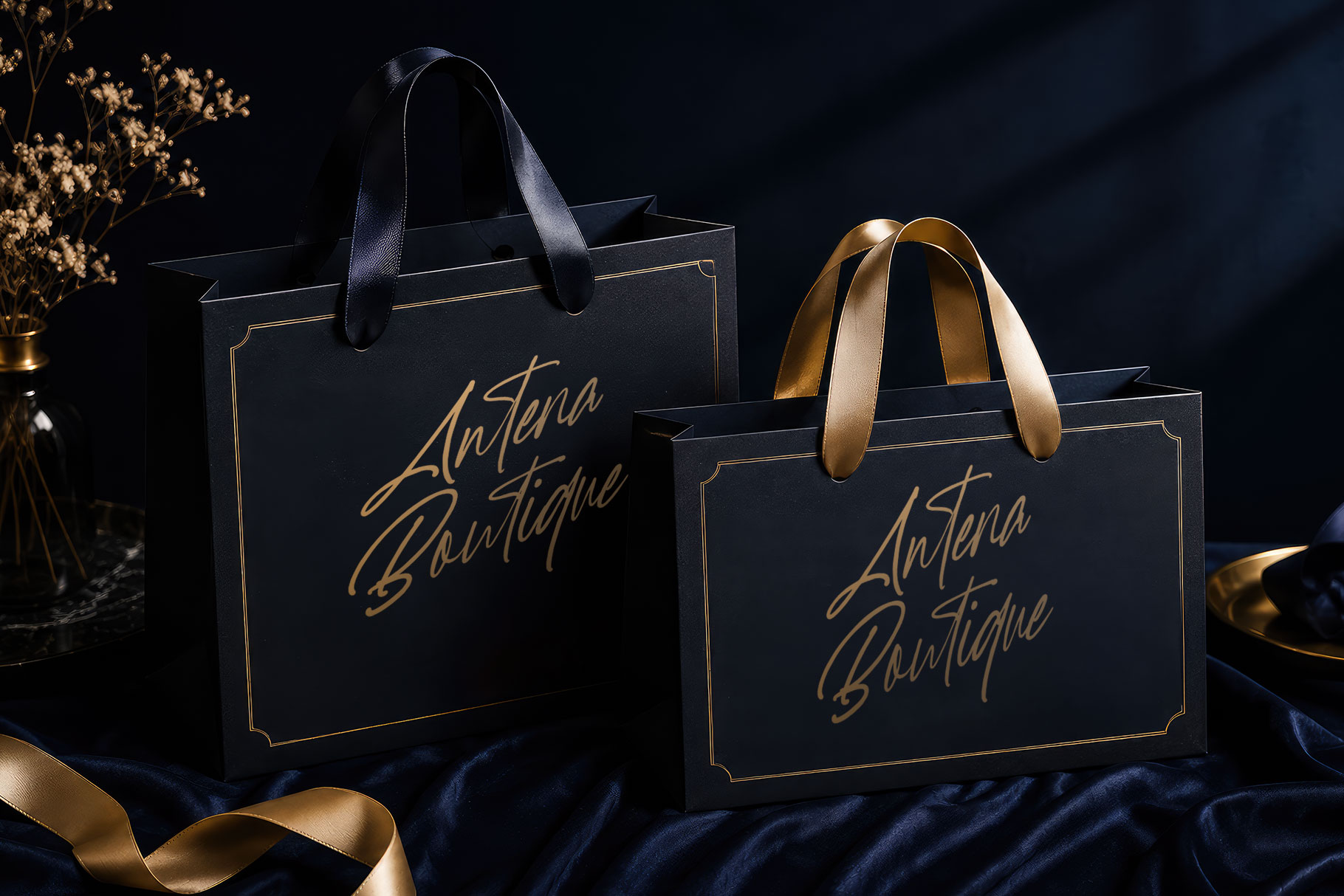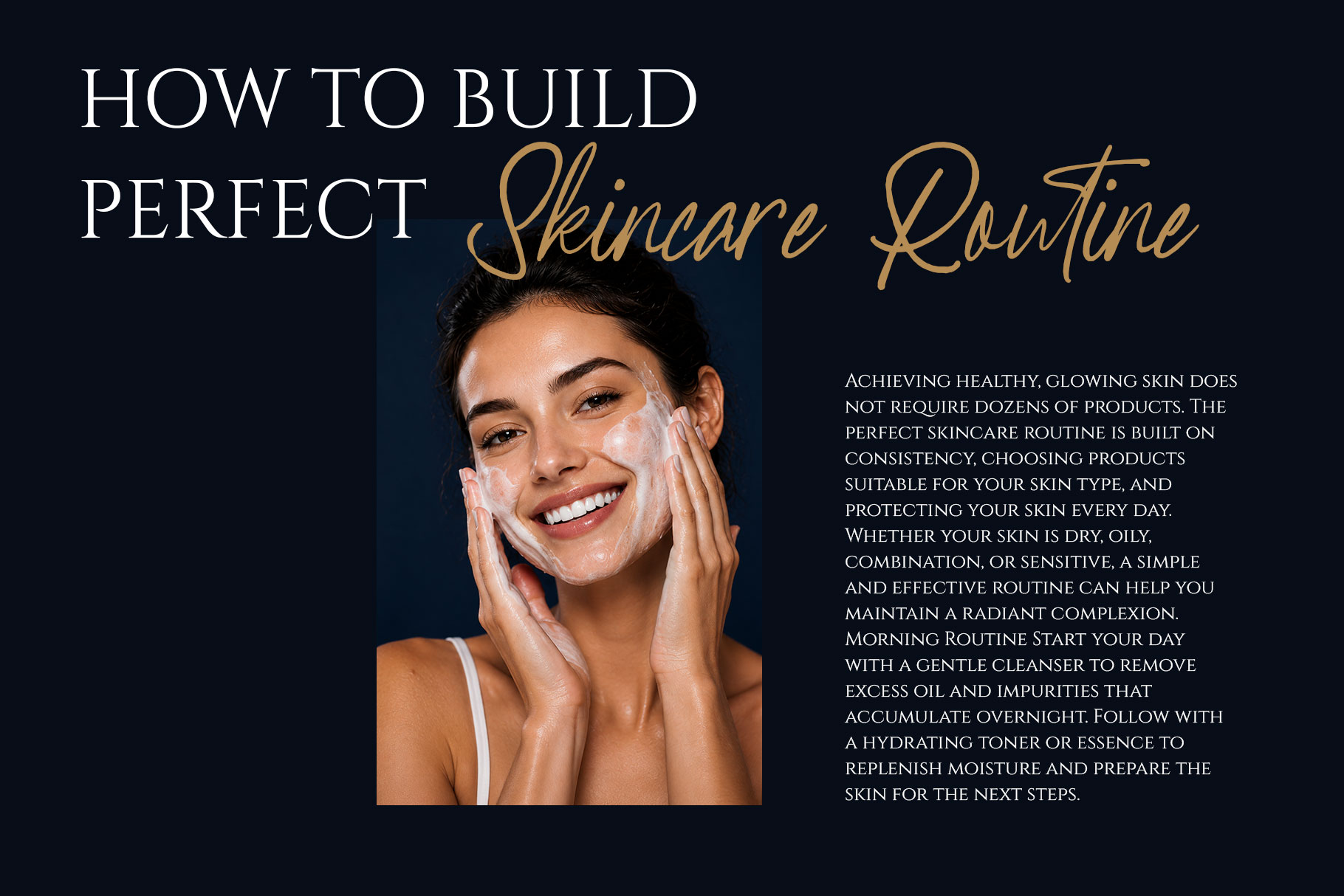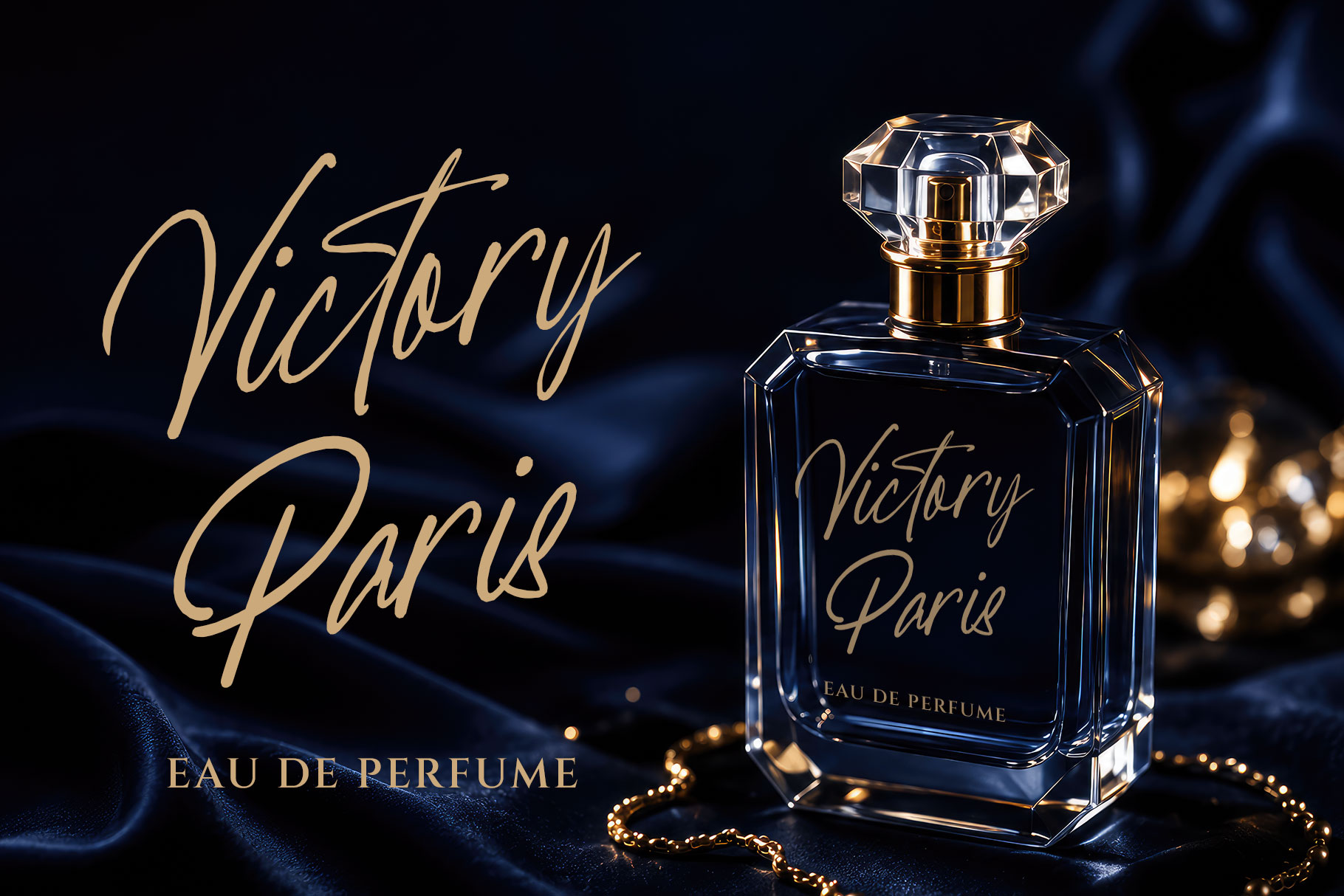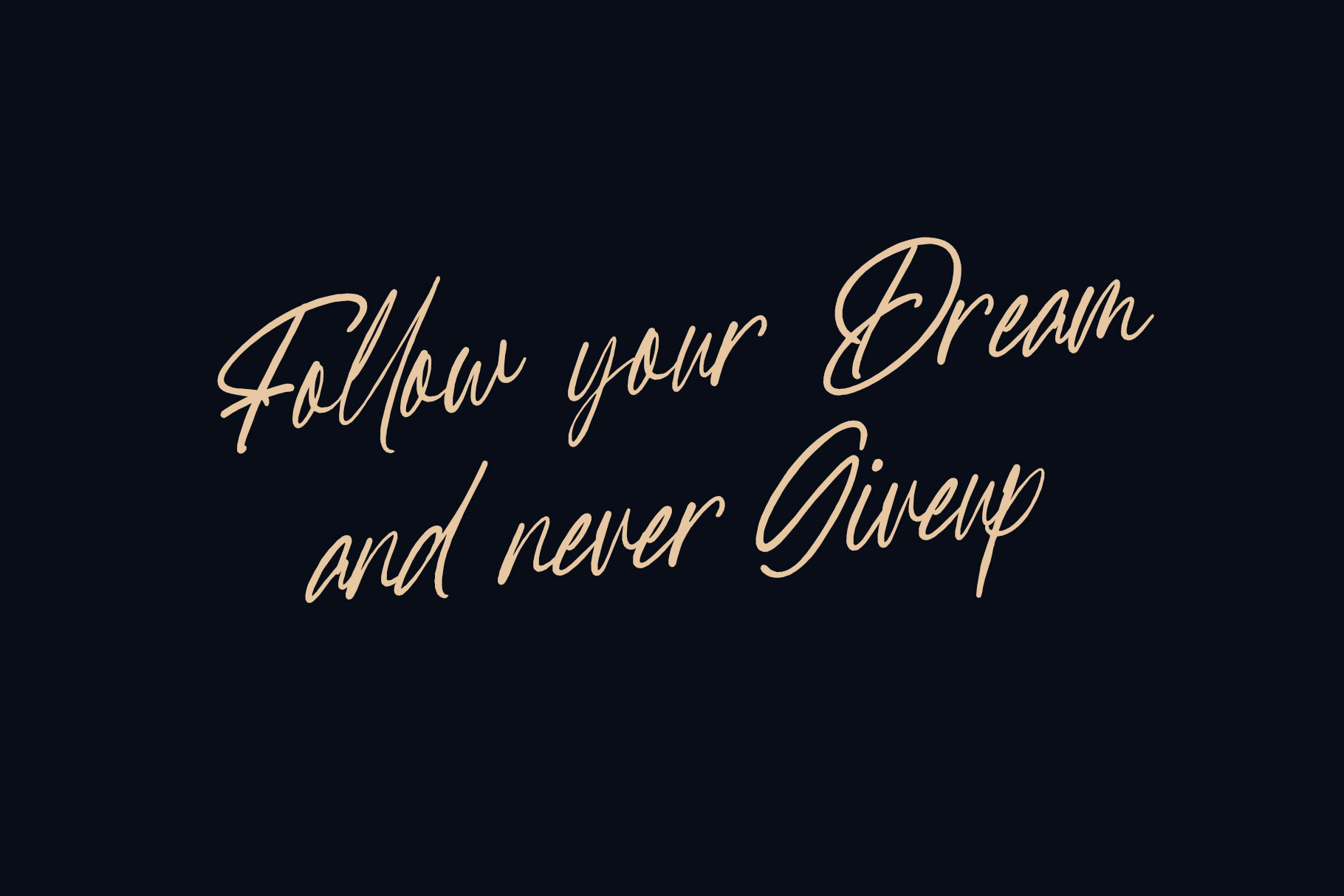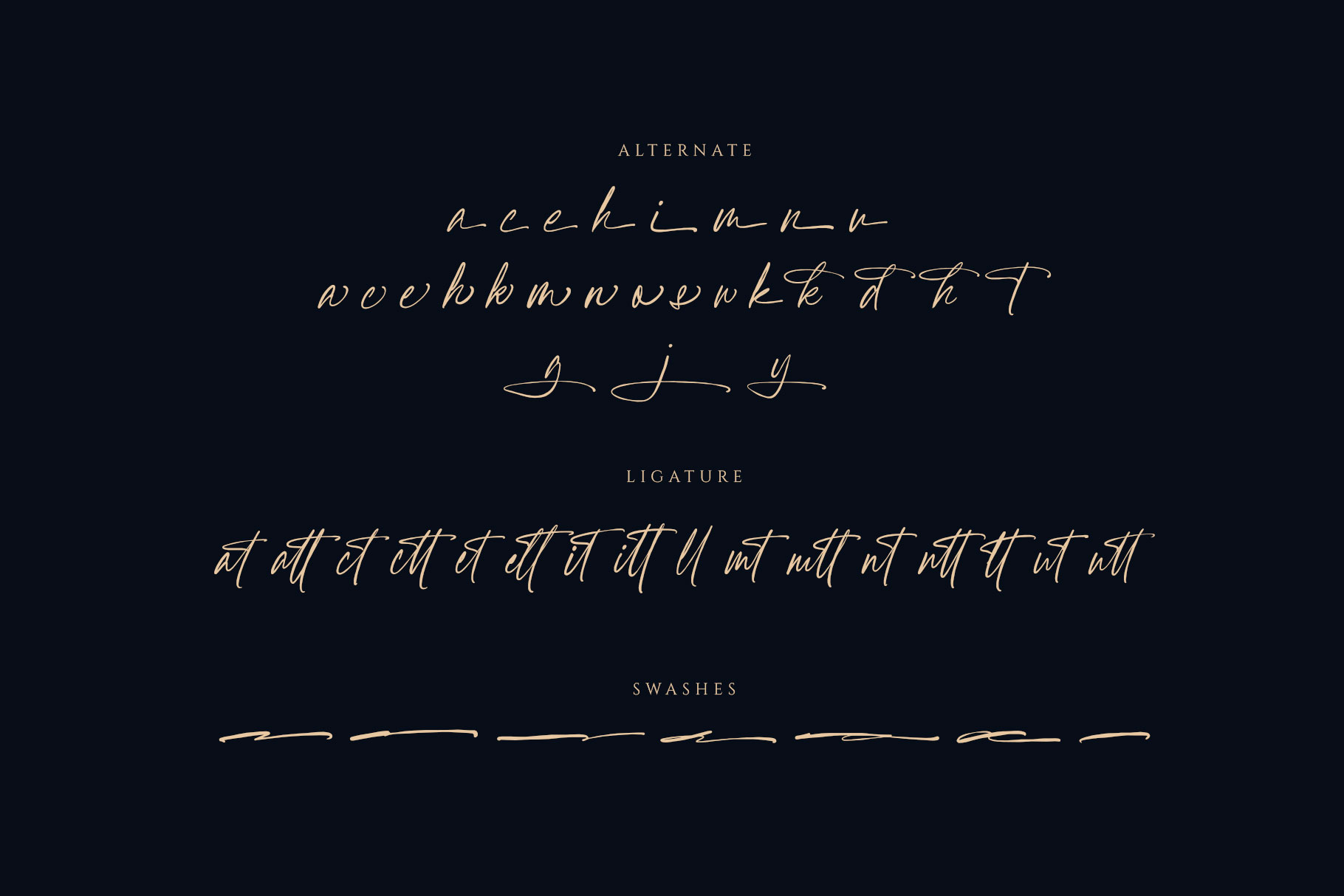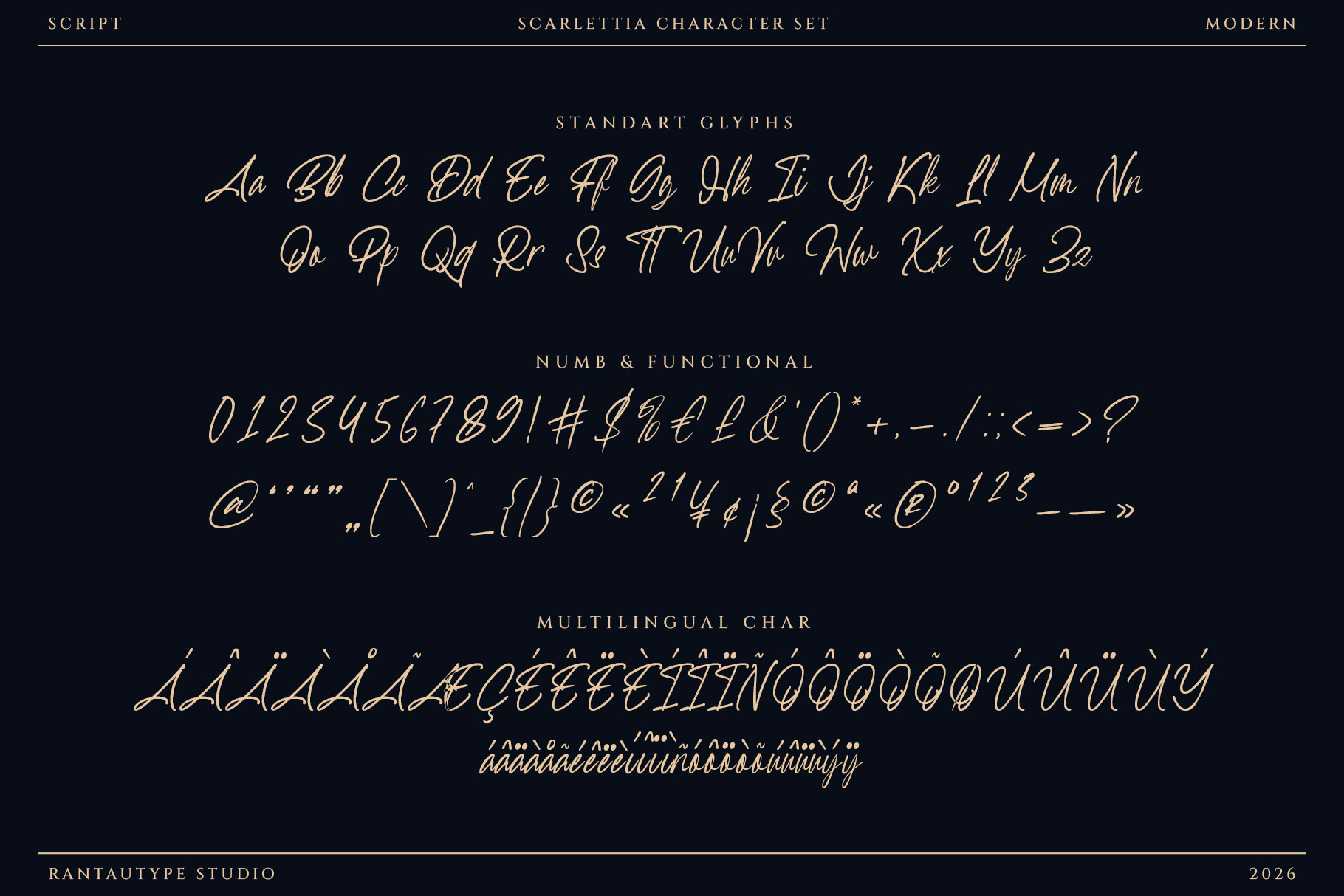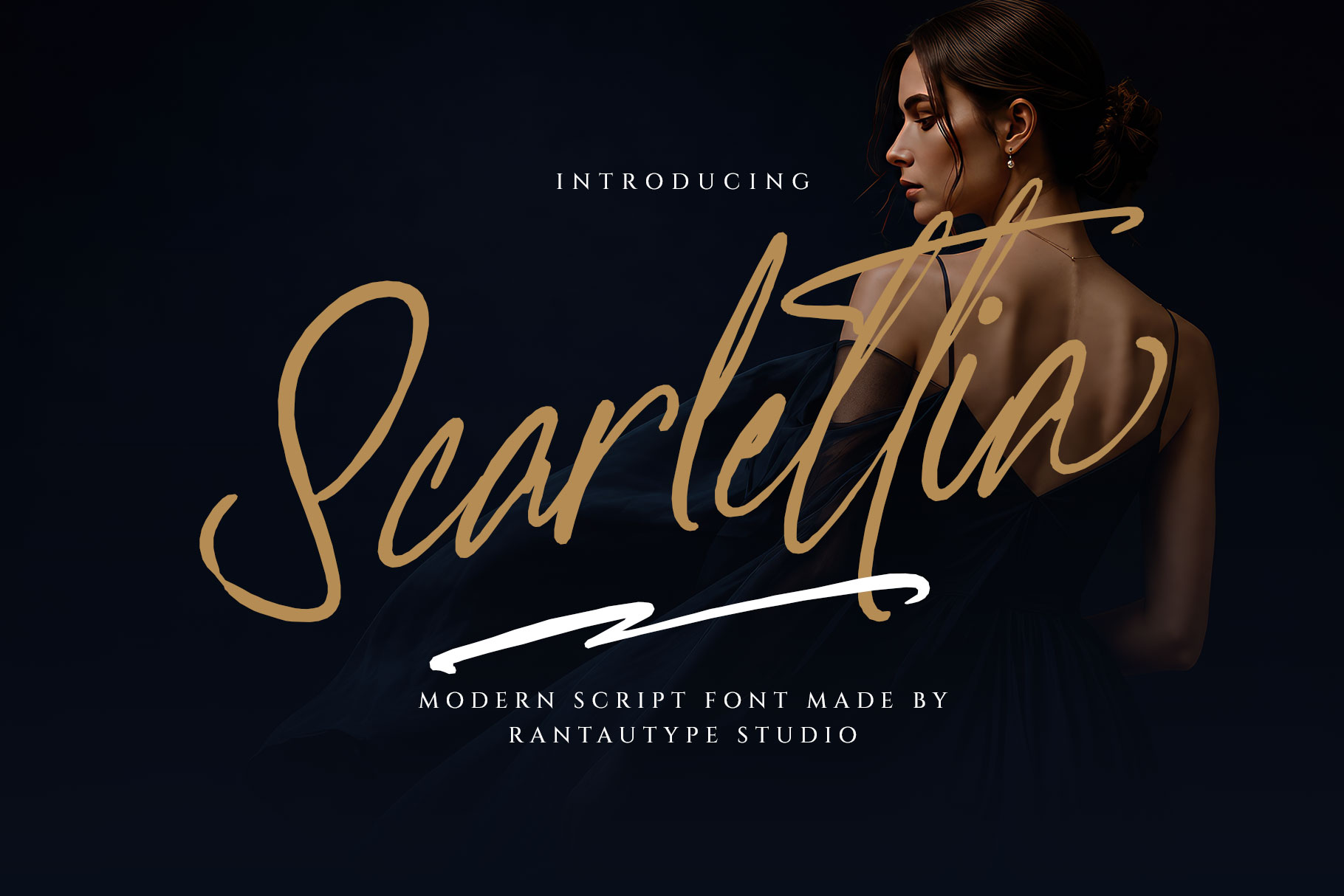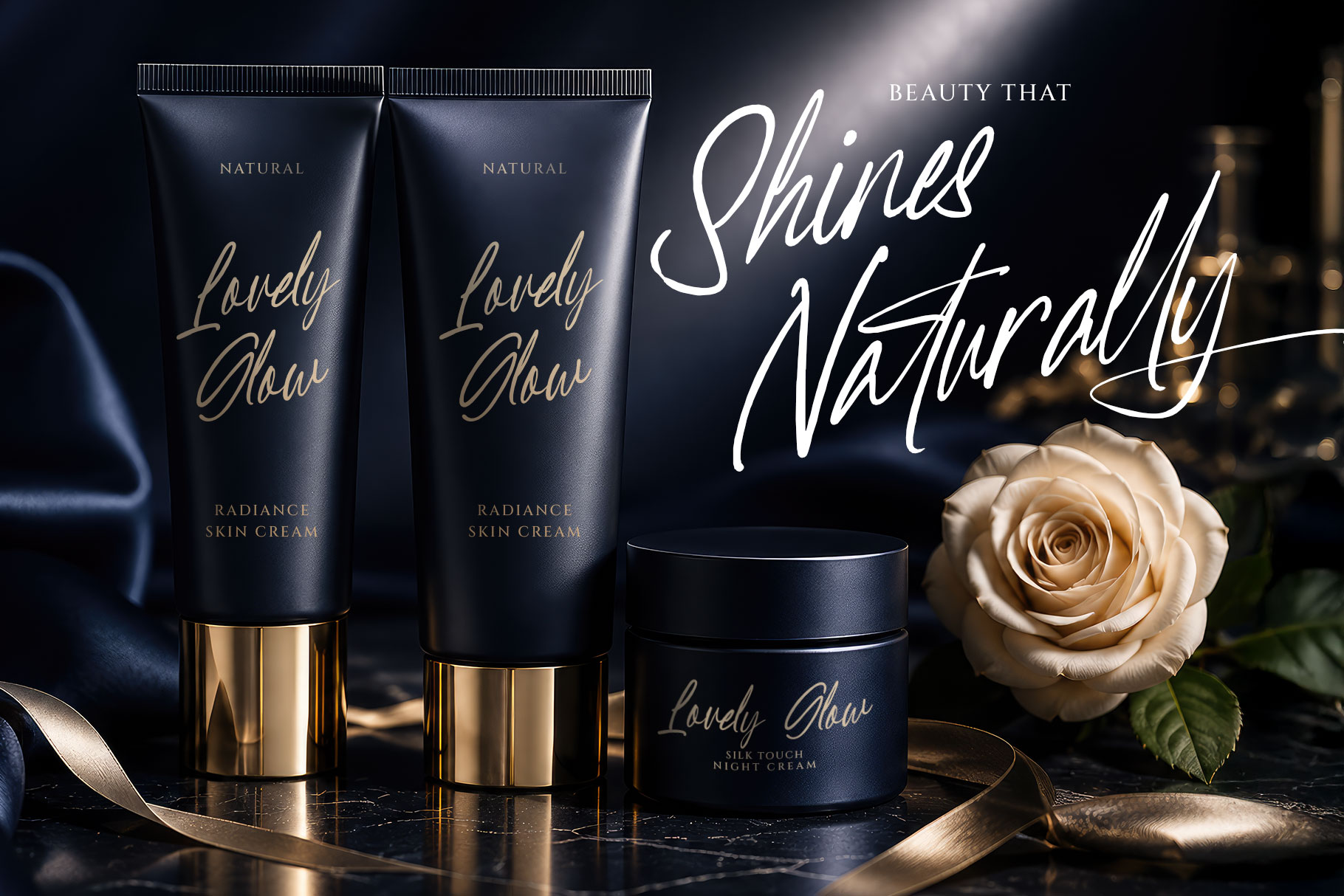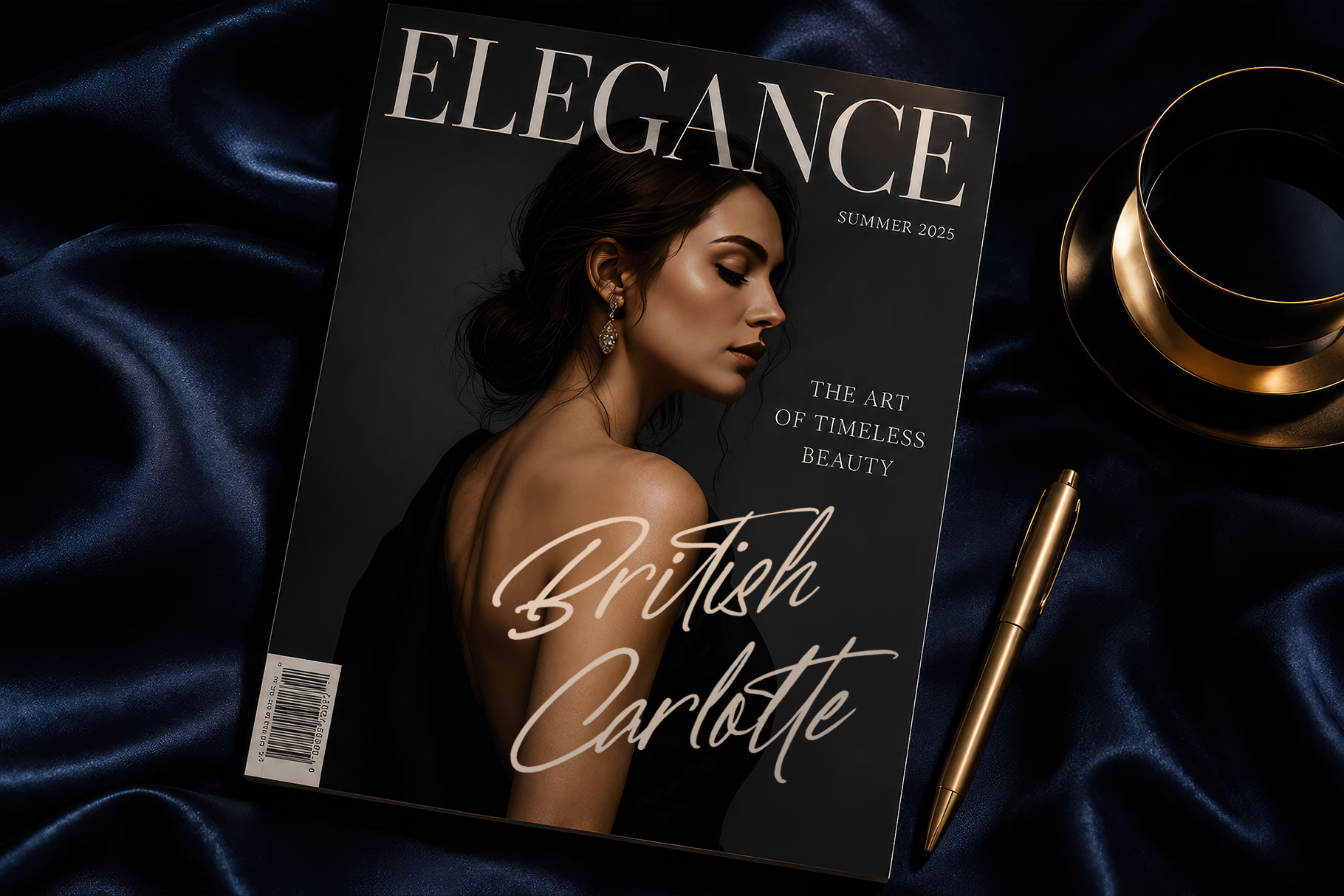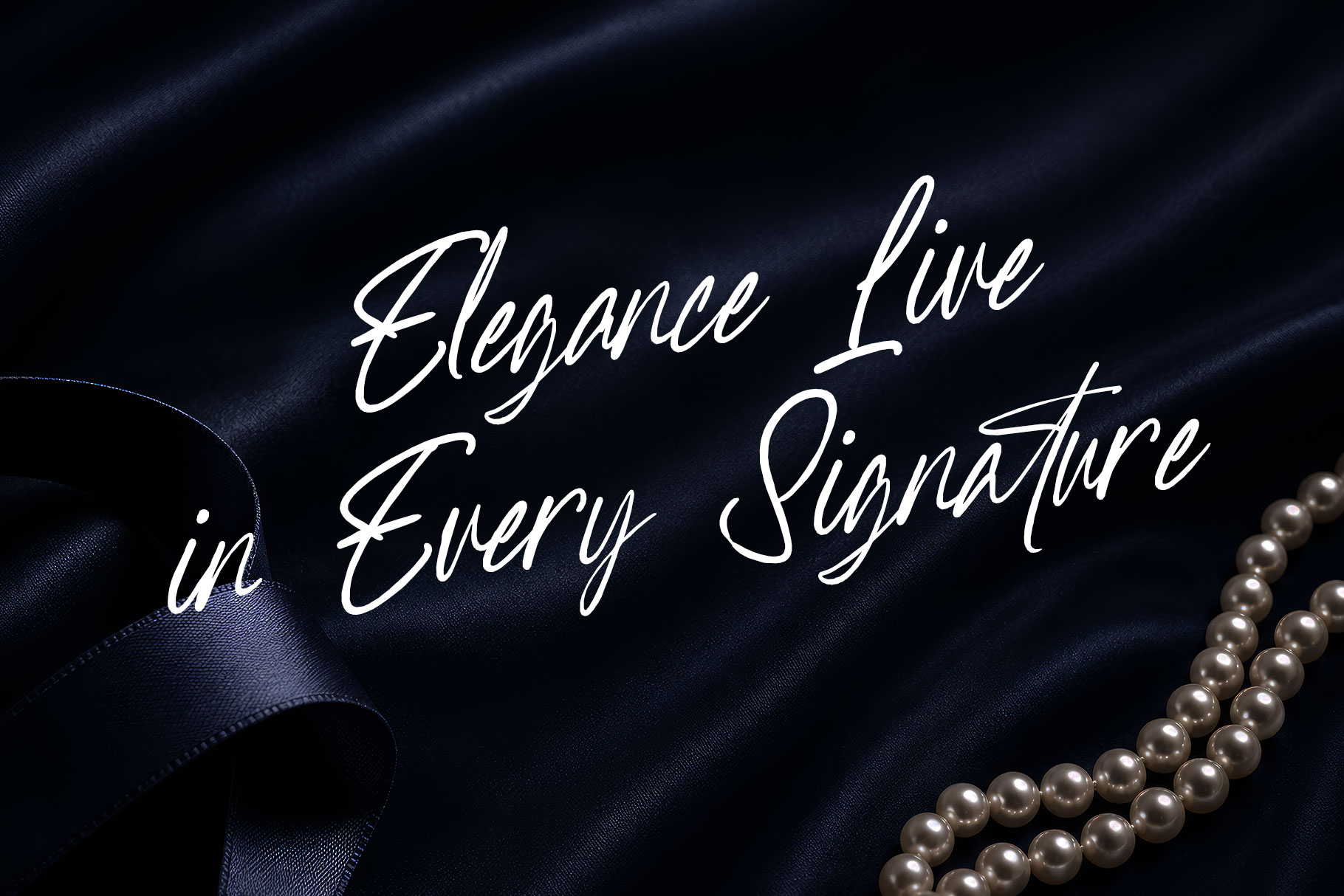
Scarlettia is modern script font captures the essence of elegance, confidence, and contemporary style through its fluid handwritten appearance. Designed with expressive brush-like strokes and graceful letterforms, it creates a natural signature aesthetic that feels both personal and sophisticated.
Scarlettia Modern Script Font